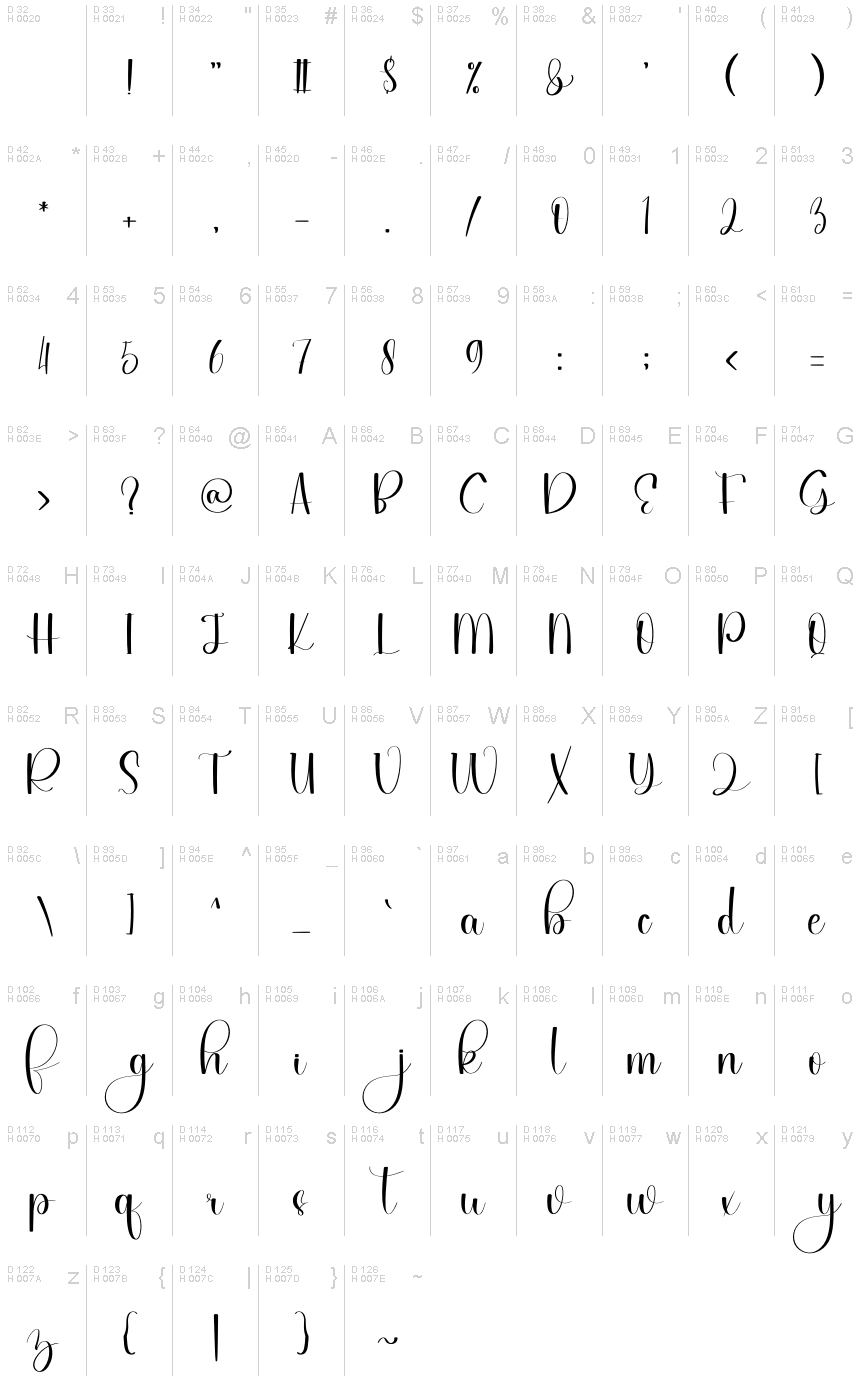
Wings
Wings, designed by PiPi Creative, is a semi-light handwritten font that boasts an airy elegance and a touch of whimsy. Its sweeping lines and organic curves are reminiscent of calligraphy crafted with a light-hearted touch, making it an ideal choice for designs that require a personal and artistic flair.
The playful yet sophisticated nature of Wings lends itself seamlessly to various creative undertakings—from wedding invitations and branding to editorial layouts and product packaging. Embrace the charm and versatility of Wings to elevate your project with its distinctive handwritten style.